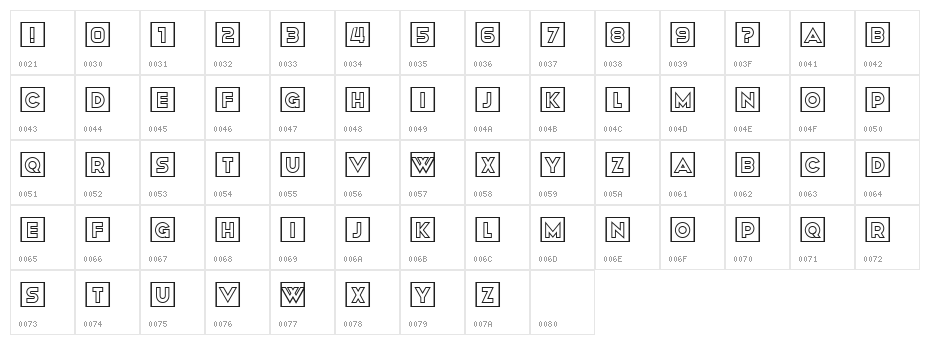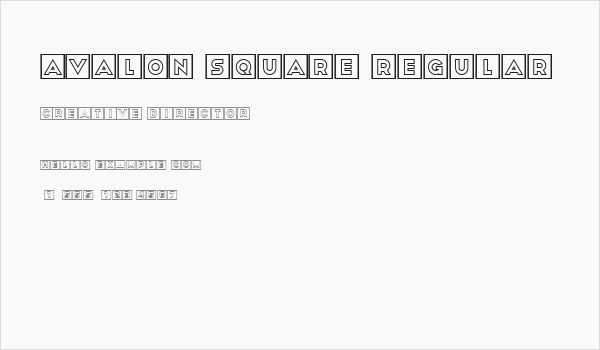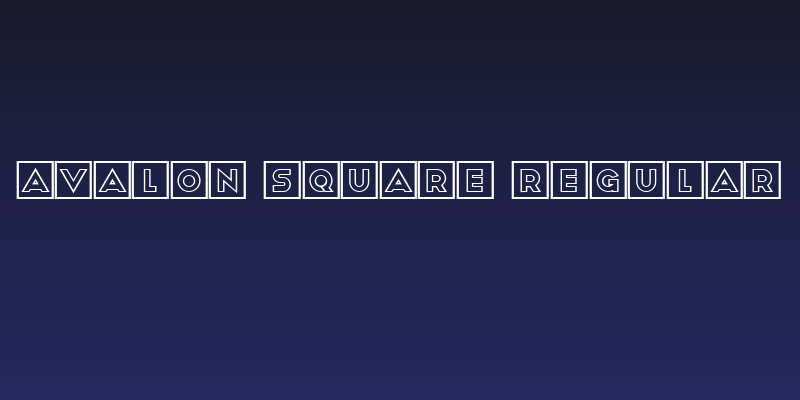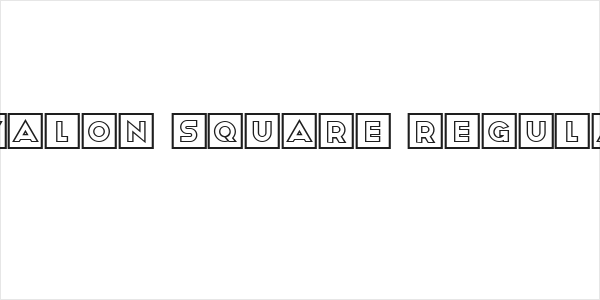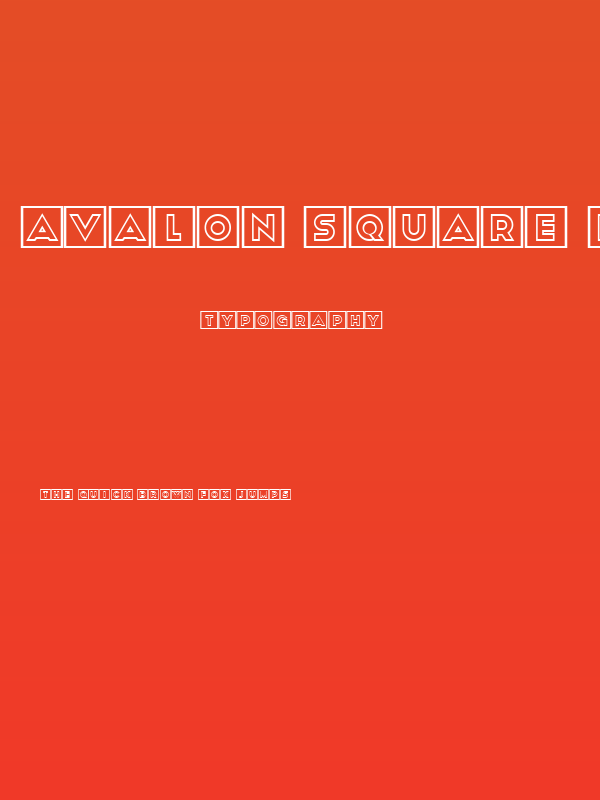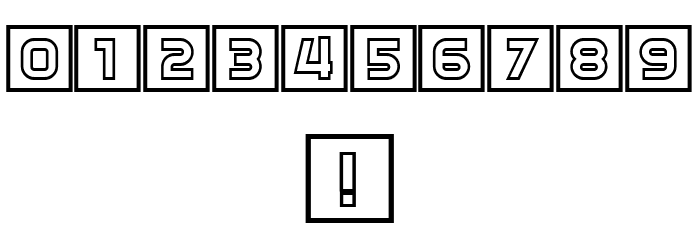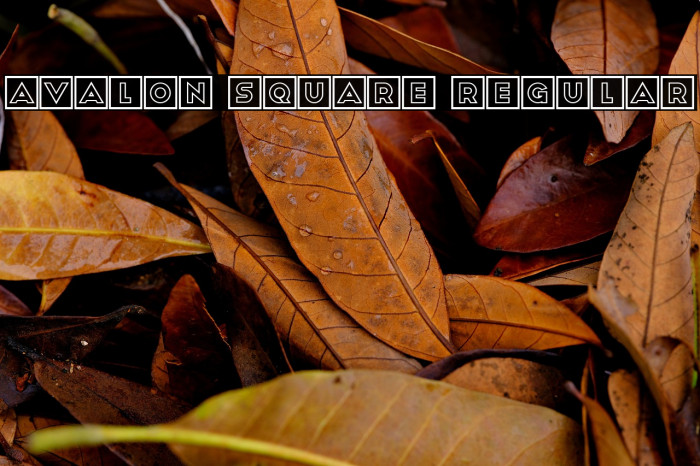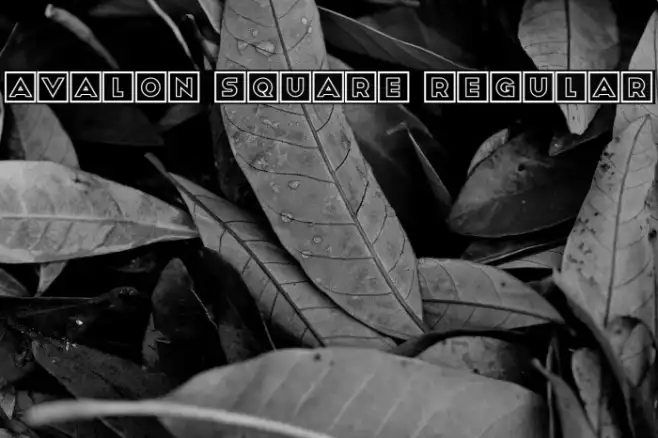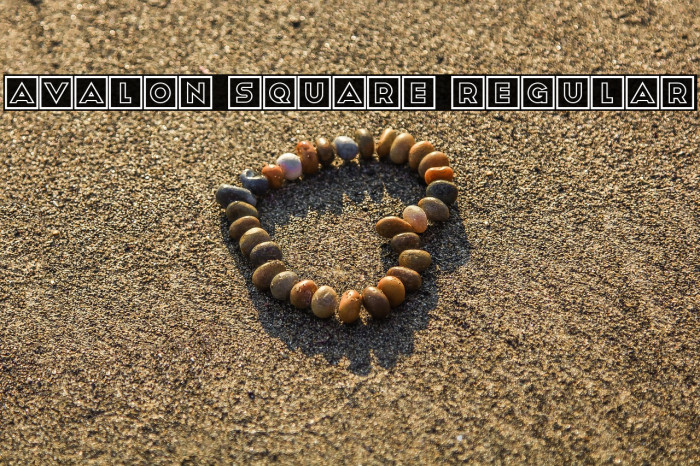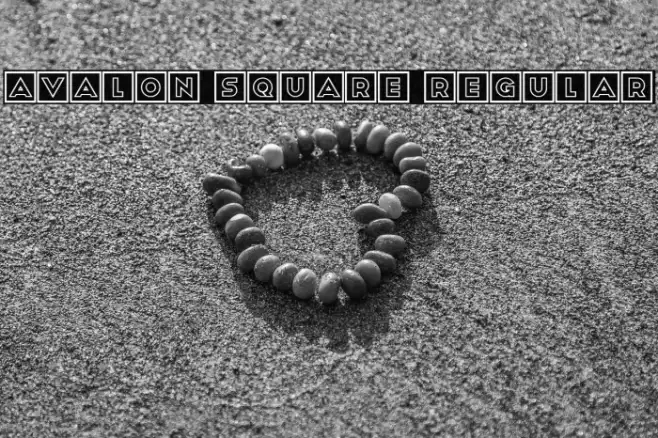
Avalon Square Regular Font
Avalon Square Regular Description
This font features a bold, geometric design with each character enclosed in a perfect square, creating a striking and uniform appearance. The letters and numbers are crafted with clean, straight lines and sharp angles, giving it a modern and structured look. The consistent use of squares around each character adds a unique decorative element, making it stand out in any design. The font's style is both contemporary and playful, suitable for projects that require a bold statement. Its clear and legible form ensures readability while maintaining a distinctive aesthetic.
| Proposed Projects | Ideal for branding, posters, headlines, and any design requiring a bold, modern aesthetic. |